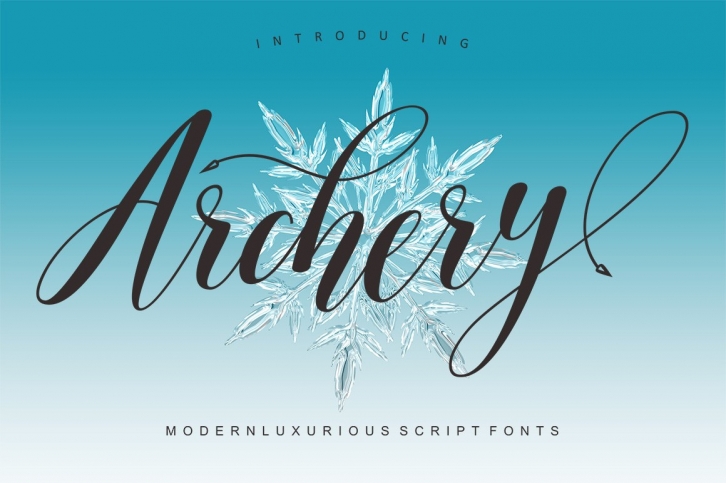
Archery Script is a beautiful font that was designed by Encolab. It's a great choice for designers and creatives who need such a font. It was released on May 16, 2019 and the file size is 7.34 MB. Archery Script may give a more youthful, expressive and casual look to your project. It is a very beautiful, refined, elegant, and high-quality font.